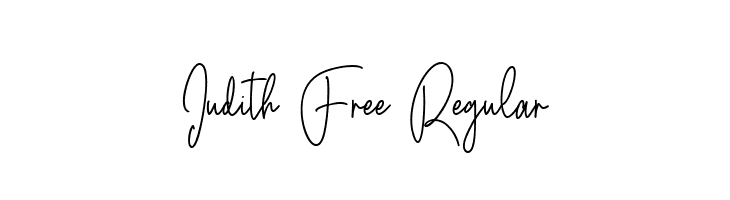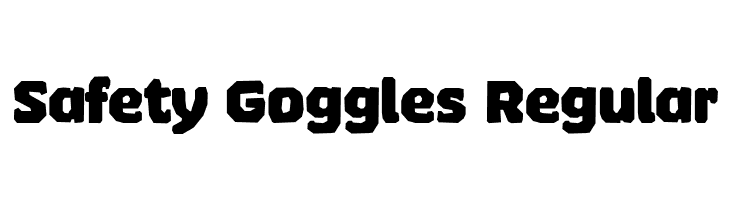
A bold, rugged font with blocky, hand-cut style letters.
A modern, medium-weight italic font with a sleek, condensed design.
A fluid and elegant script font with a handwritten appearance.
A graceful and fluid script font with elegant, interconnected letters.
A decorative Blackletter font with intricate, ornate letterforms and a historical elegance.
A dynamic, flowing script font with a natural handwriting style.
A decorative and abstract font resembling a fictional script.
A graceful, slanted script font with ornate uppercase and streamlined lowercase letters.
A bold, handwritten font with a playful and energetic style.
A lively and expressive script font with dynamic, flowing letterforms.